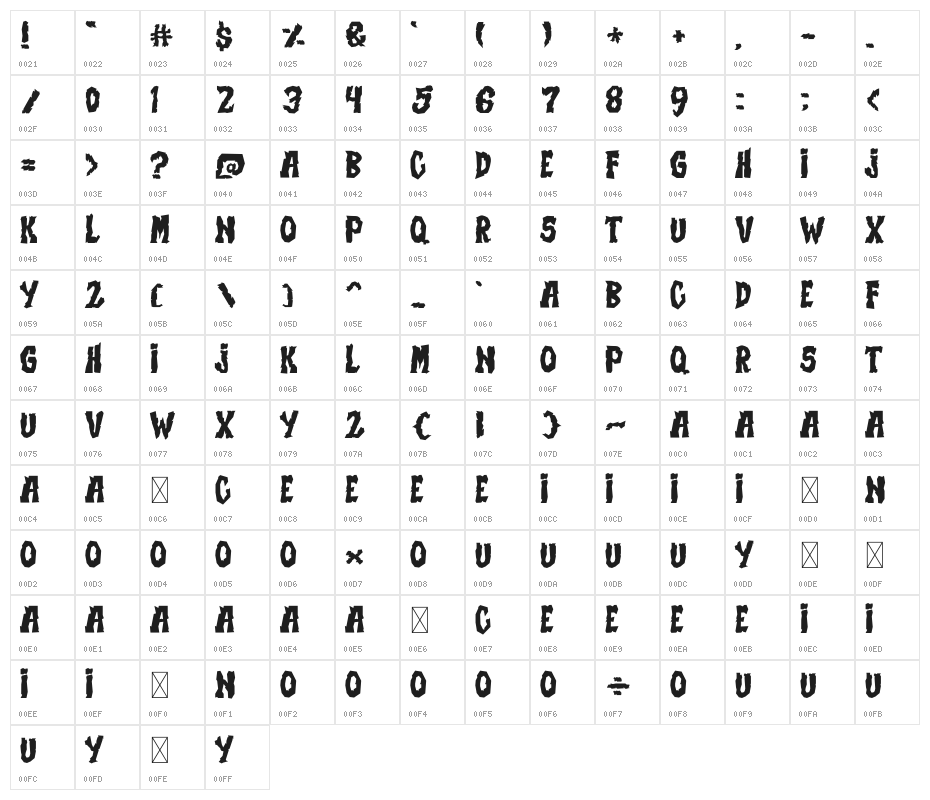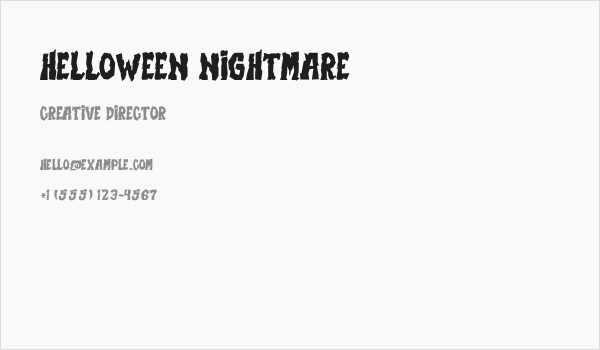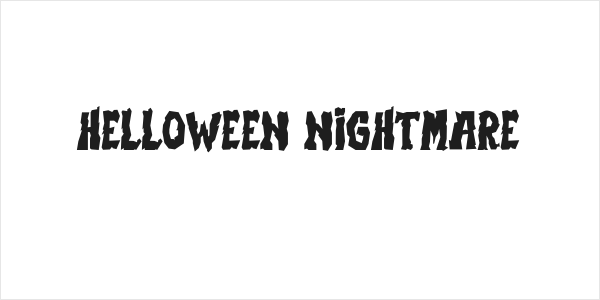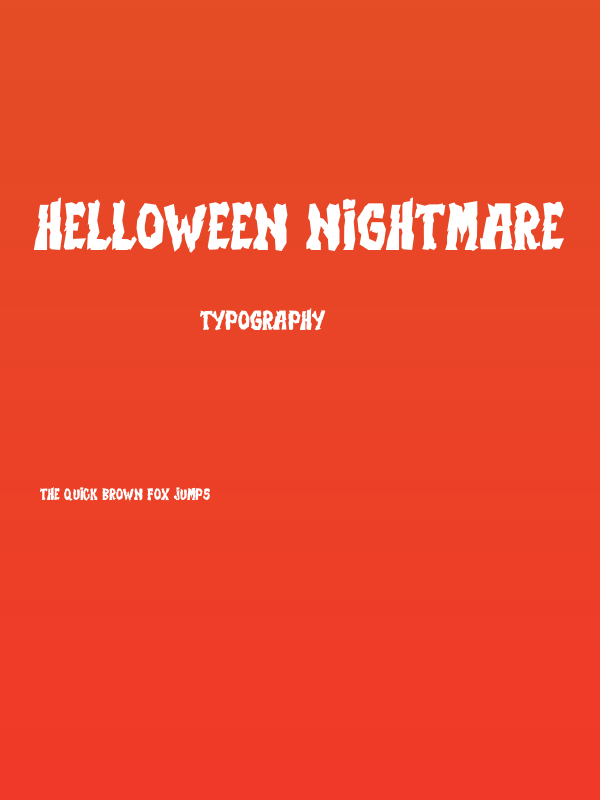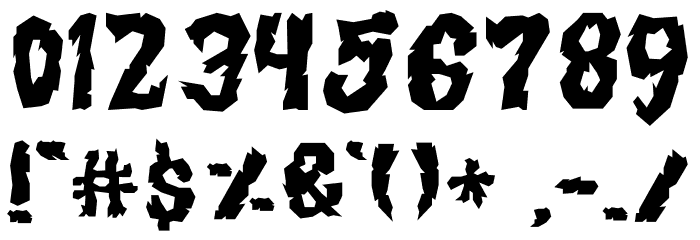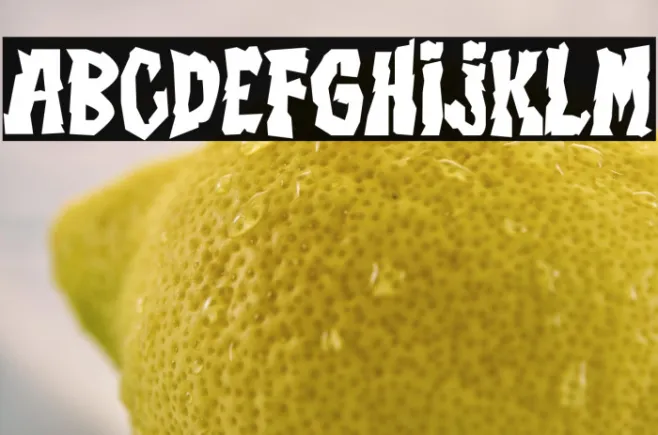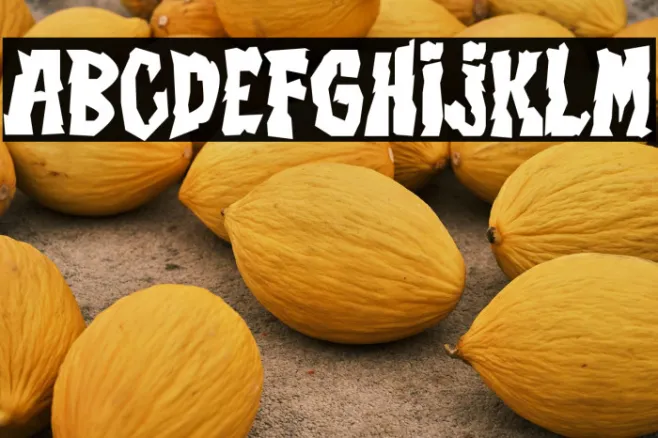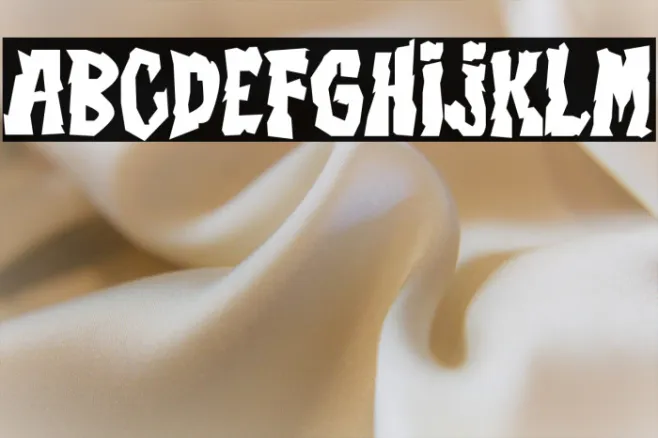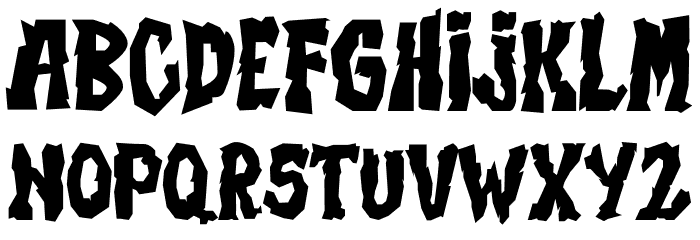
Helloween Nightmare Font
Helloween Nightmare Description
This font features a bold and jagged design, reminiscent of torn paper or shattered glass, giving it a distinctly eerie and unsettling appearance. The characters are irregular and angular, with sharp edges and varying thickness, creating a sense of chaos and unpredictability. This style is perfect for themes that require a spooky or horror-inspired aesthetic, as it evokes feelings of mystery and suspense. The uppercase and lowercase letters maintain a consistent style, while the numbers and special characters complement the overall design with their unique, fragmented look.
| Proposed Projects | Ideal for Halloween-themed posters, horror movie titles, haunted house flyers, and spooky event invitations. |